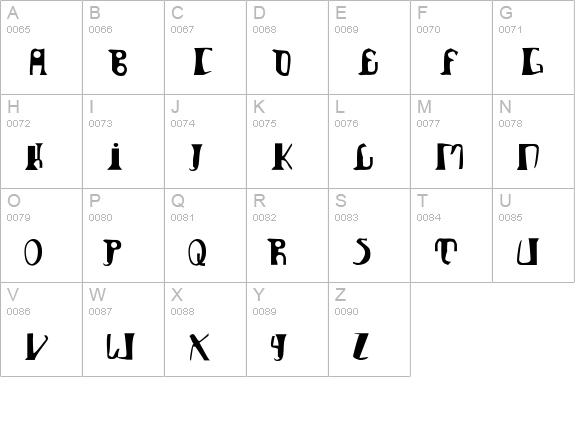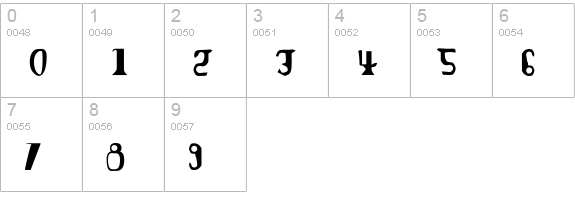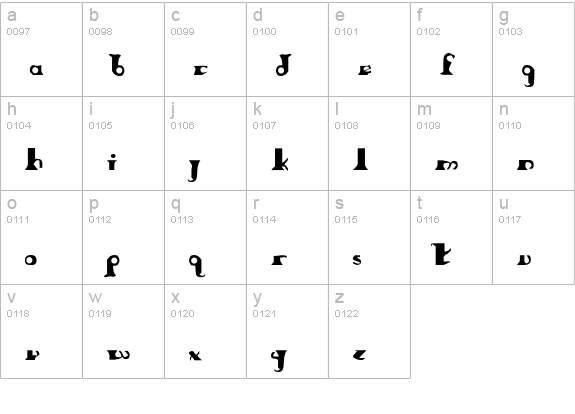
Anvilregular Font Details
Anvilregular font is a versatile and modern typeface that exudes elegance and sophistication. With its clean lines and balanced proportions, Anvilregular is perfect for a wide range of design projects, from logos to websites to printed materials. Its timeless appeal makes it suitable for both professional and creative applications. Best of all, Anvilregular is available for free download at FontsMarket.com. This means you can add this stunning font to your collection without any cost, enabling you to enhance your designs with a touch of class and refinement. Don't miss out on this opportunity to elevate your projects with the timeless beauty of Anvilregular font. Download it today and start creating impactful designs that stand out from the crowd.